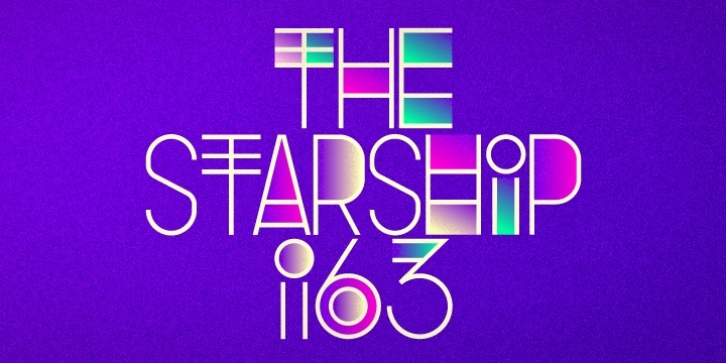
Odyssea 632 is the follow up to a http://www.hypefortype.com exclusive font called Odyssea which was originally designed by Pablo Alfieri. Odyssea 632 contains all of the features of the original font and also supports 42 languages.